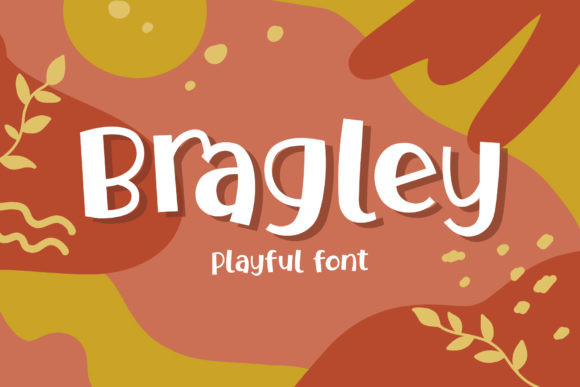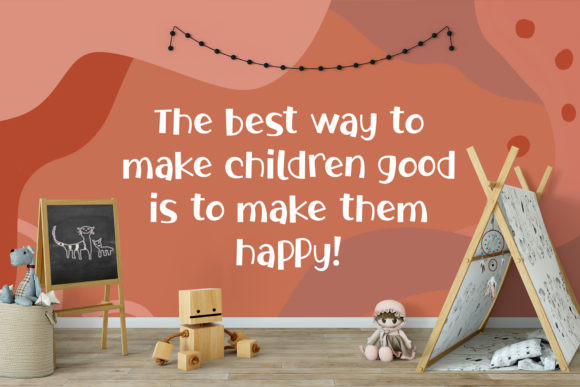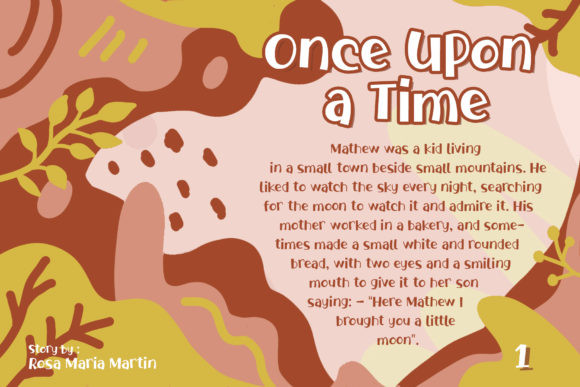
Bragley Font
Bragley is a playful display font. It features bouncy characters. Get creative with its joyful playfulness, and use it to brighten up any kids and school project!